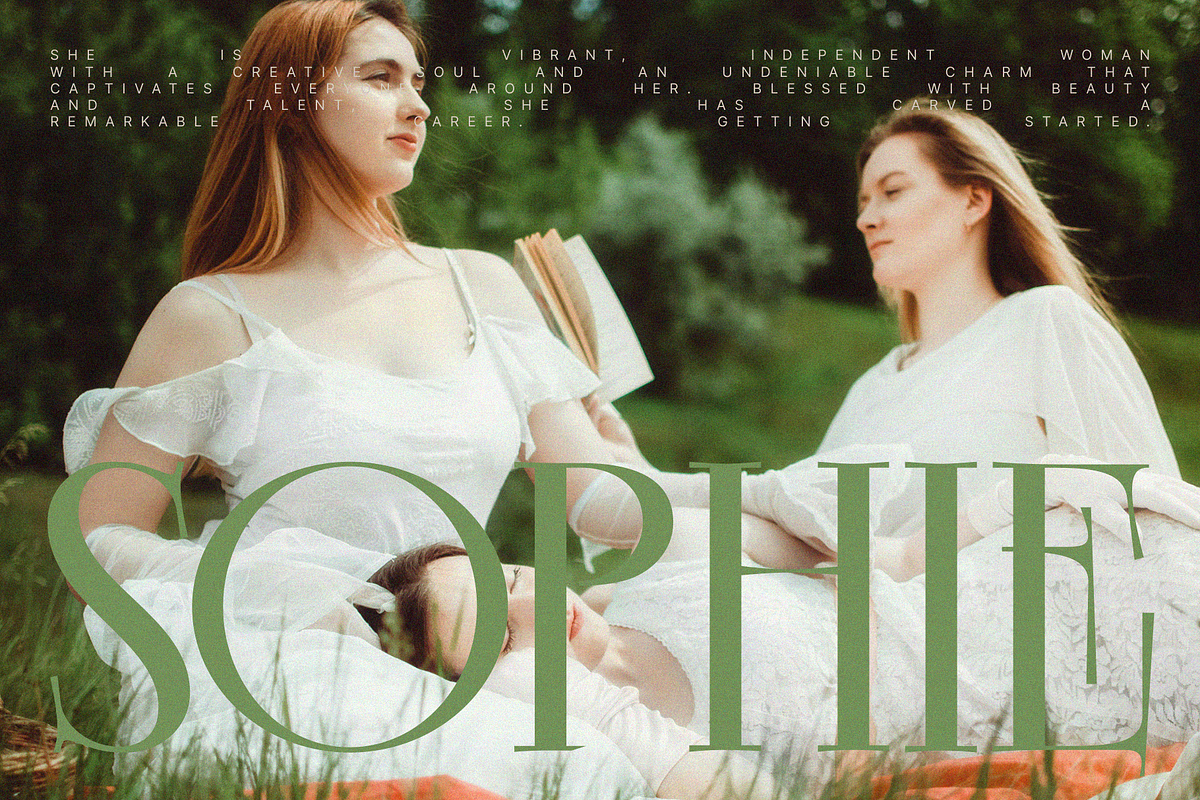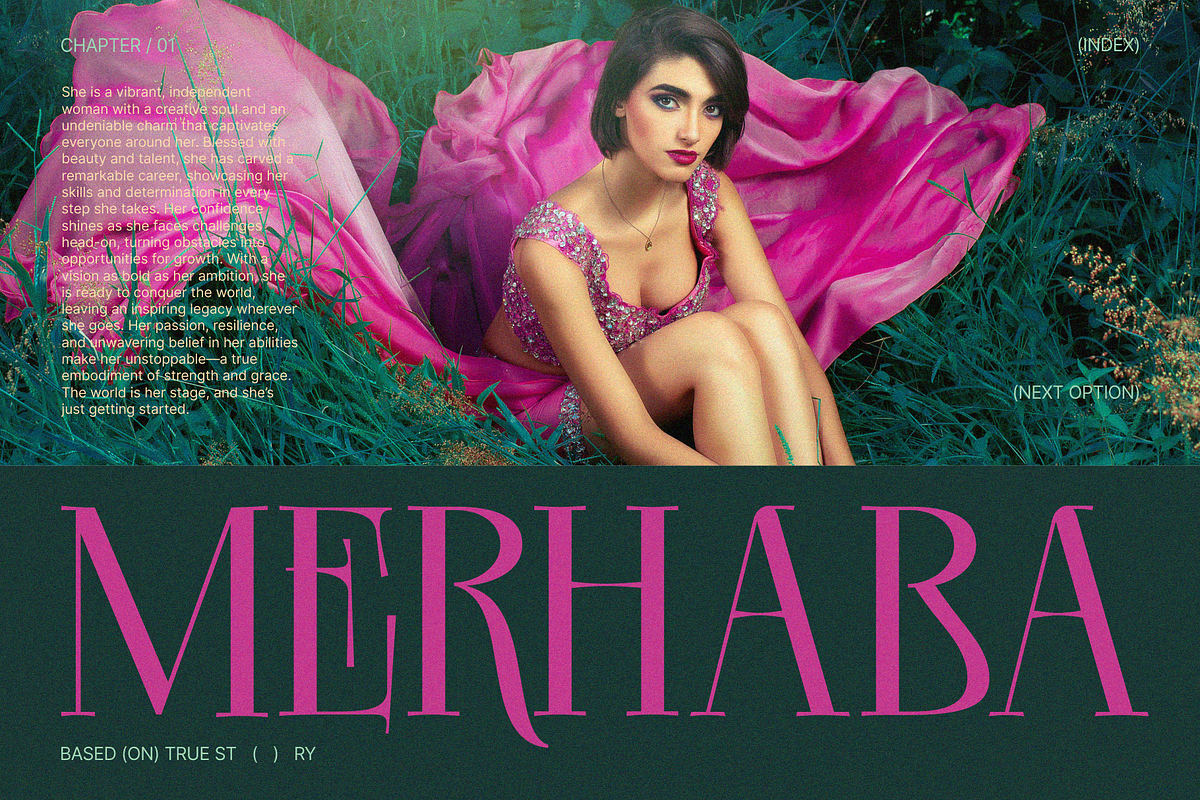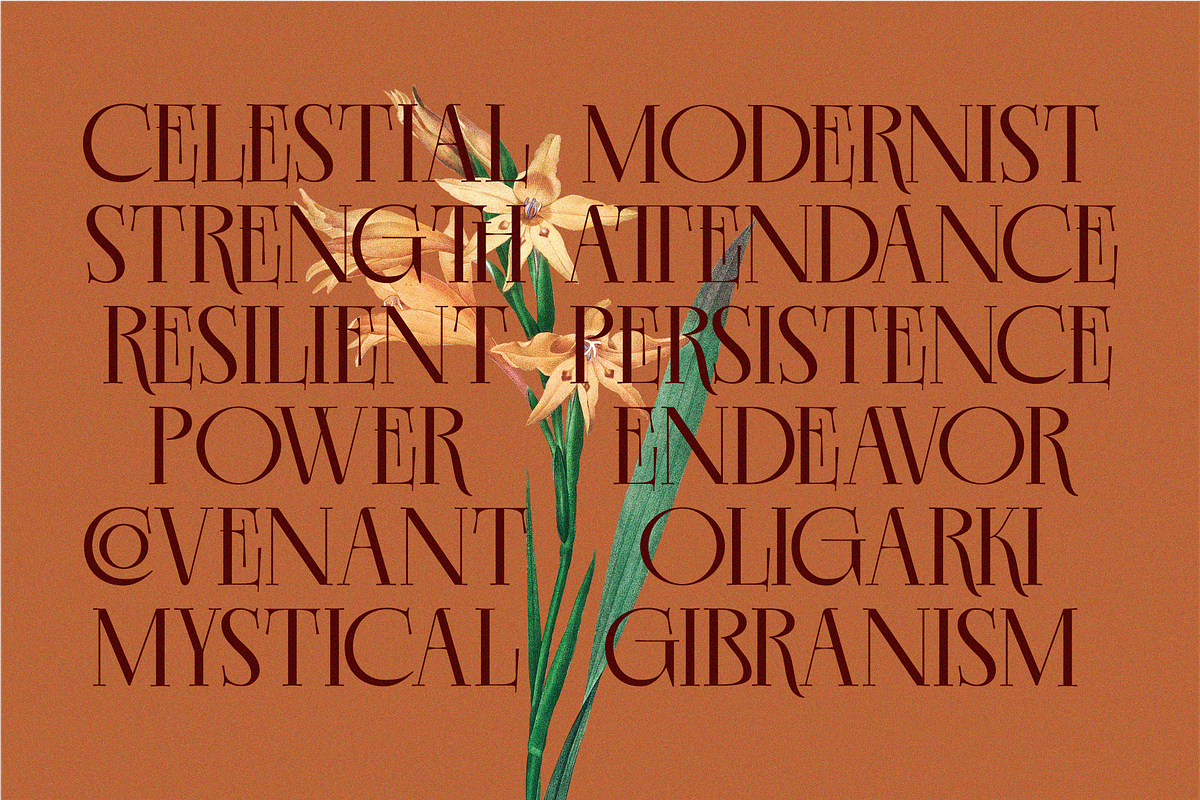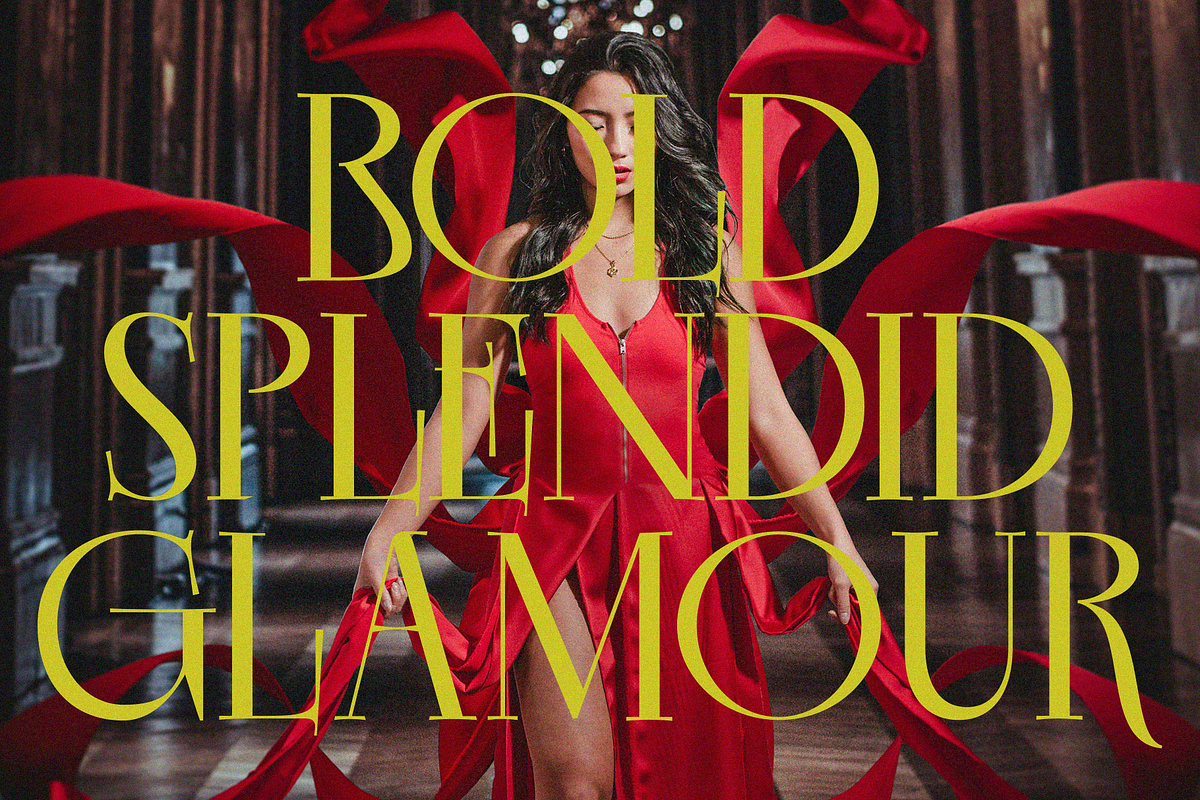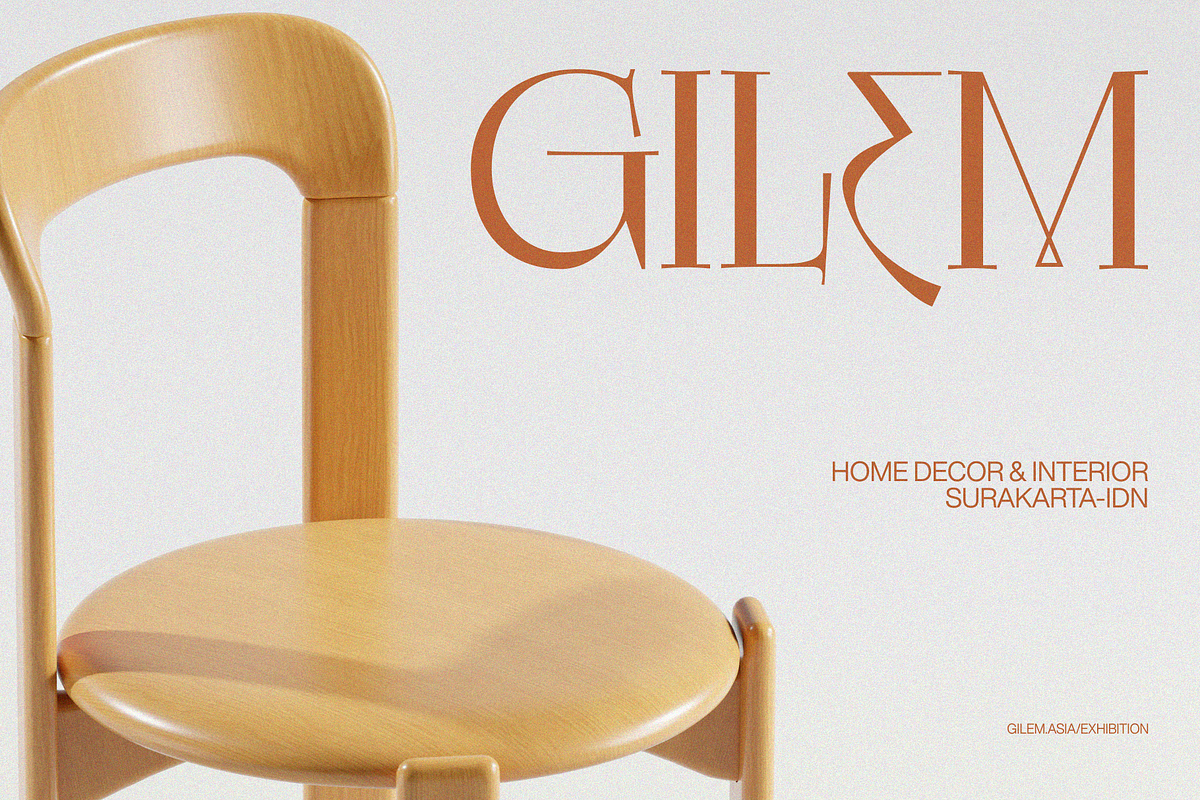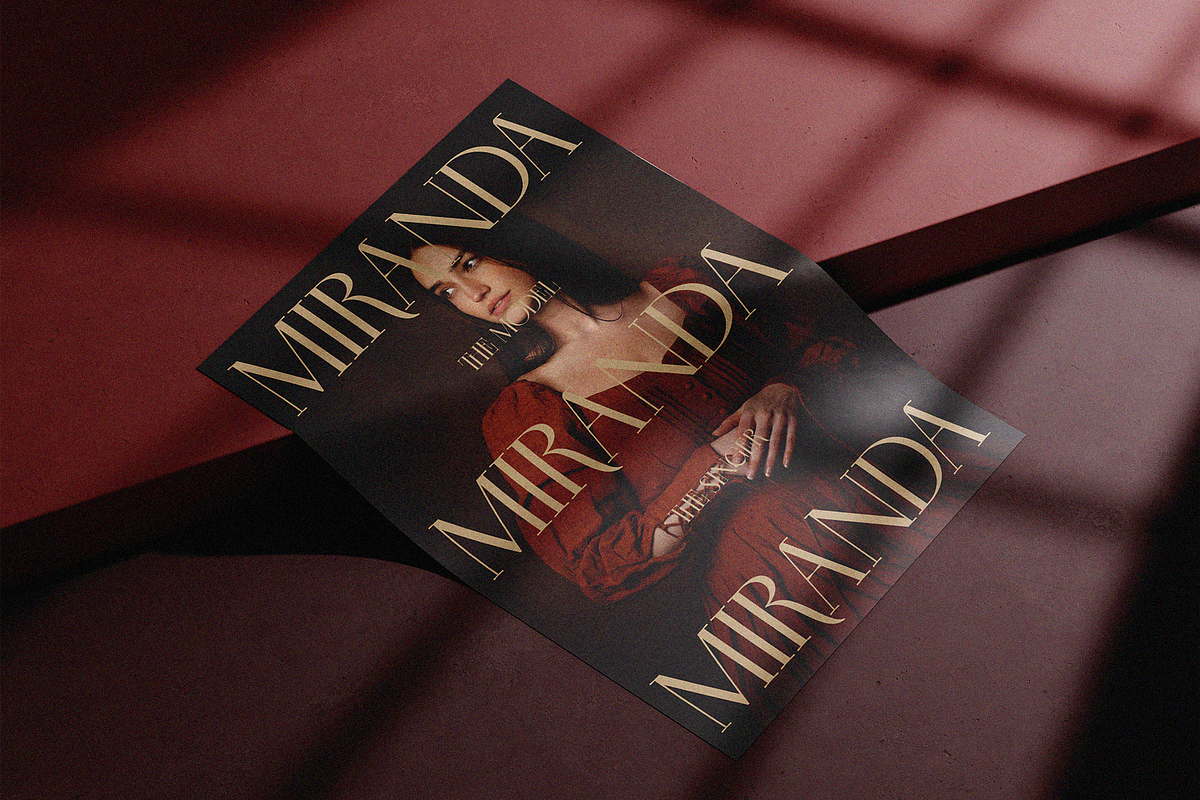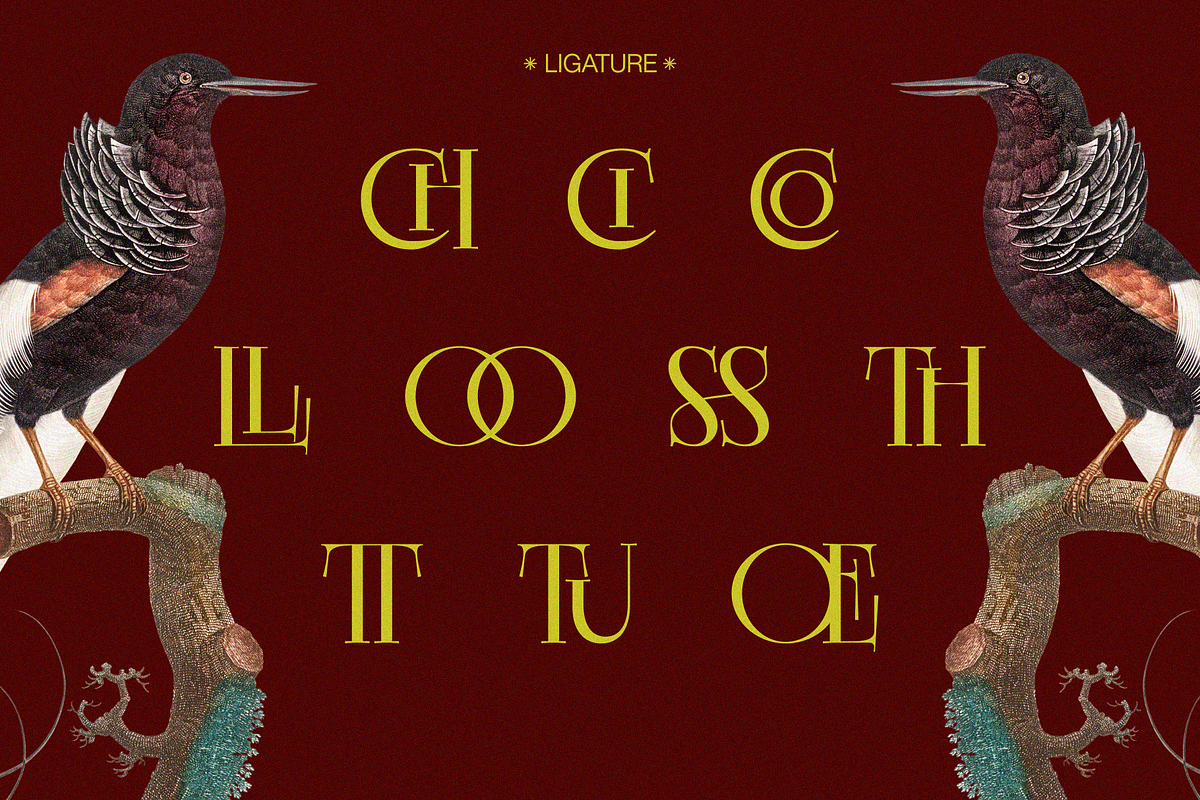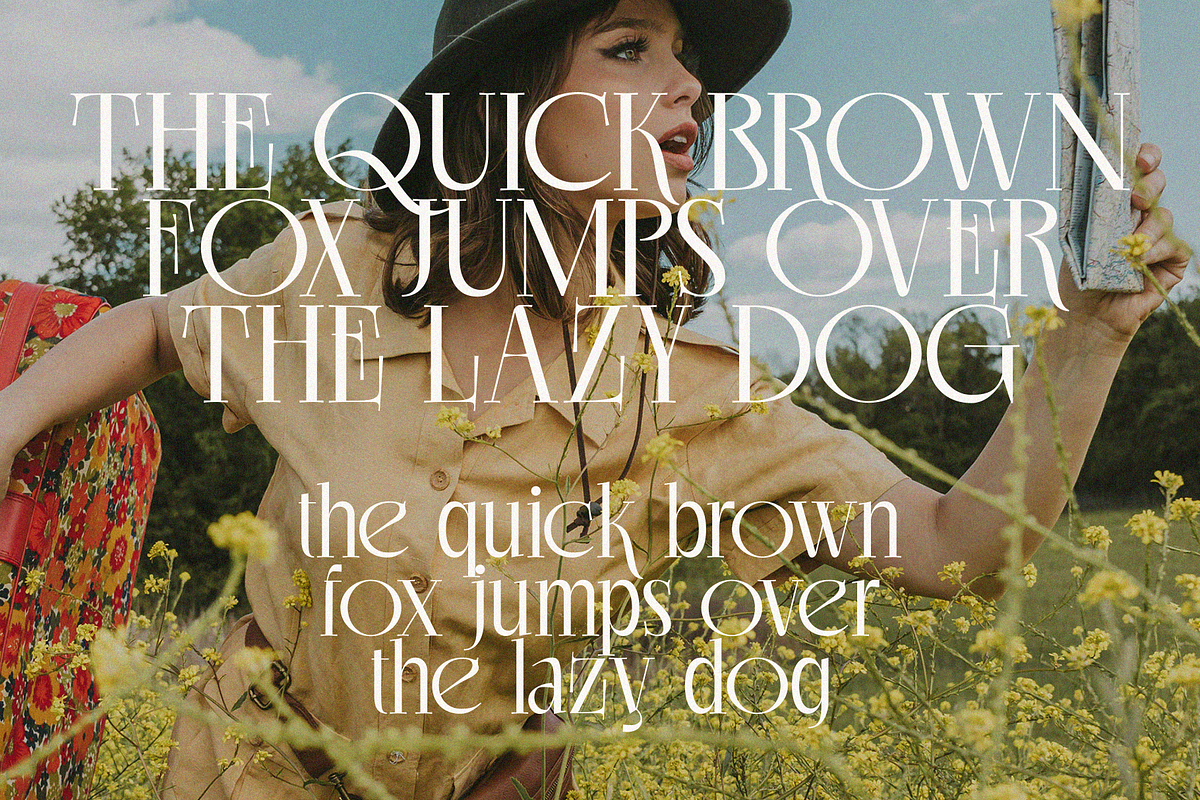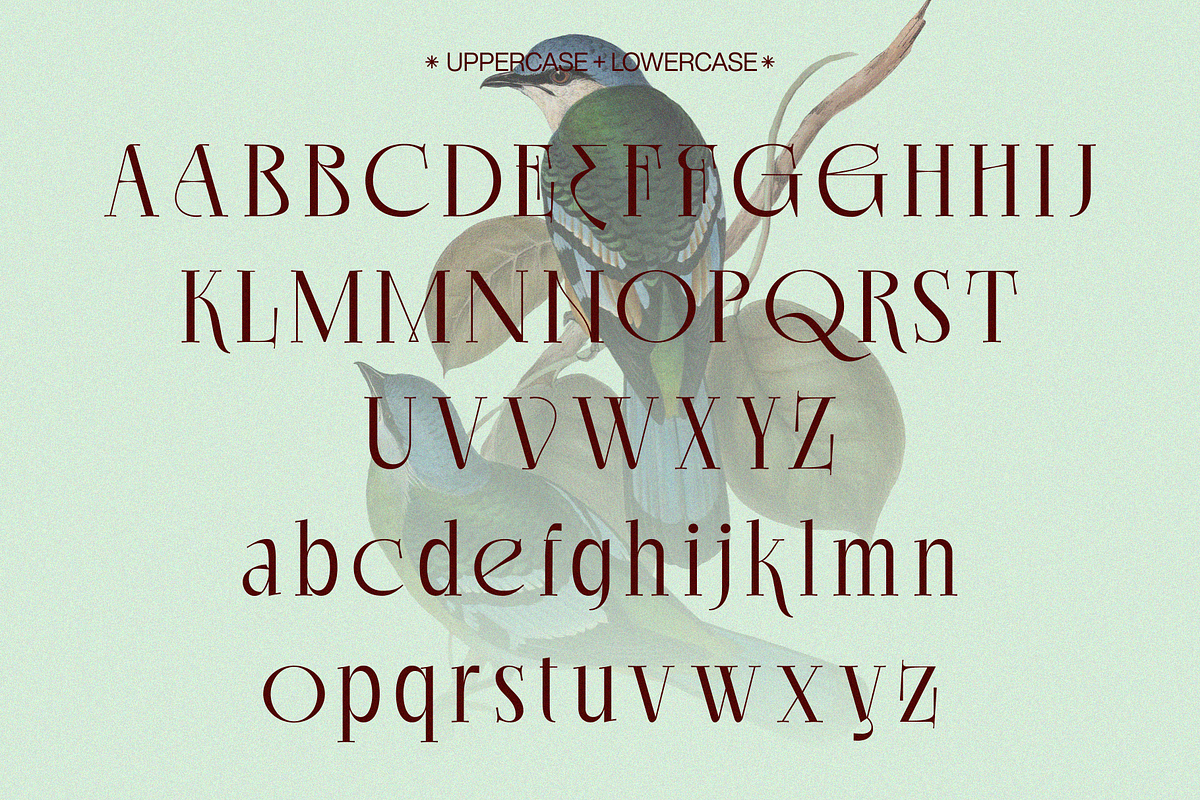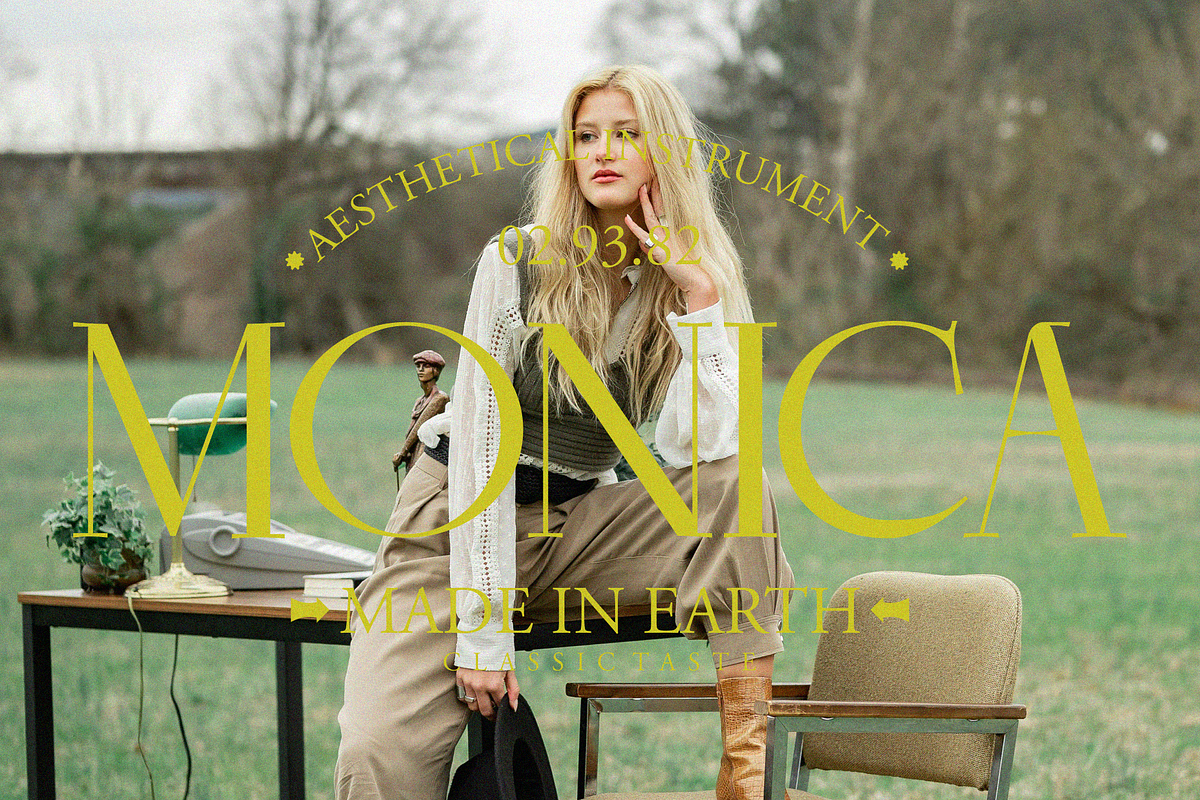
EKGIERO — Elegant Luxury Serif Font
Ekgiero, an elegant serif typeface designed to elevate your brand with a lavish and sophisticated touch. This modern and luxurious font perfectly captures the essence of fashion, beauty, and premium aesthetics, making it an outstanding choice for creating bold, rich logos and branding materials. Whether you’re crafting a high-end cosmetic line or a chic boutique identity, Ekgiero’s clean yet fancy style brings a prestigious and glamorous feel to any project.
Made for fashion-forward designers and brands seeking to convey elegance and luxury, Ekgiero seamlessly blends classic serif elements with modern, stylistic features. Its extensive set of ligatures and glyphs enhances versatility, allowing you to produce exquisite typography that stands out in the crowded marketplace. Embrace sophistication with Ekgiero, the font that defines lavish elegance for your logo, brand, skincare packaging, and more.
- 247 Glyphs
- Alternates and Ligatures
- Numeral, Punctuation & Symbols
- Fashion brands and logos
- Luxury cosmetic and beauty products
- Skincare packaging and boutique branding
- Glamorous editorial designs
- Premium logos and identity systems
- Aesthetic packaging and advertising materials